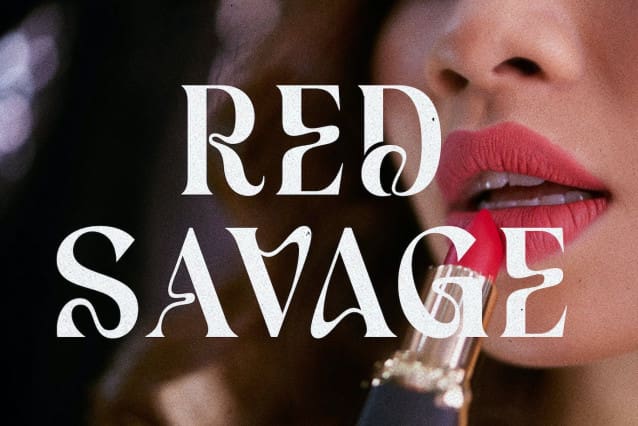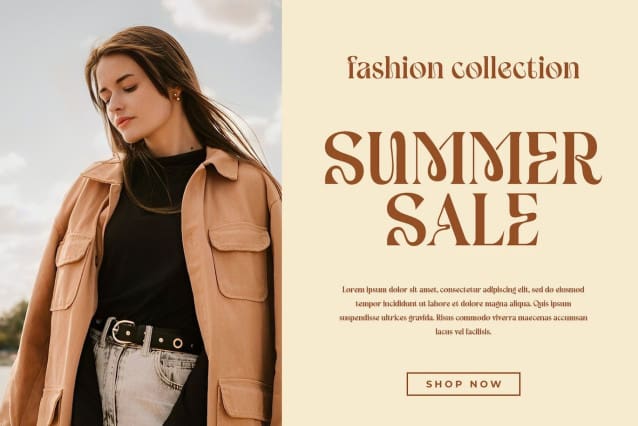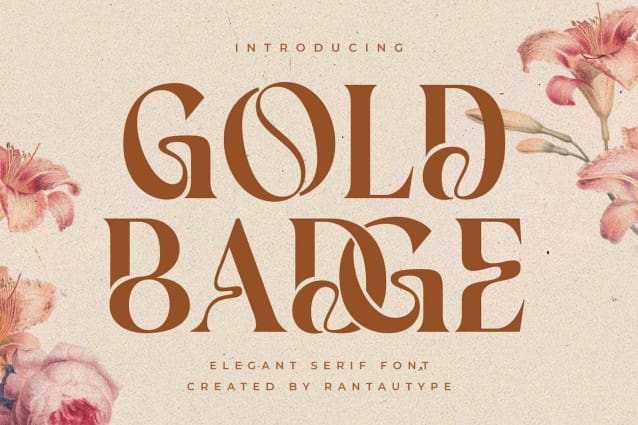
Gold Badge Font
Gold Badge Font is a modern Serif font whose bold curve gives it a unique, elegant and versatile look. Comes with more alternatives and ligatures that you can mix and maximize to create a more stunning display. The GoldBadge comes with multilingual support.
Gold Badge Separate is a great choice for any creative activity, creating elegant, modern, chic and lifestyle designs such as logos, headline, cover, branding, display, magazine, etc. Now you have more choices with GoldBadge to create stunning branding.